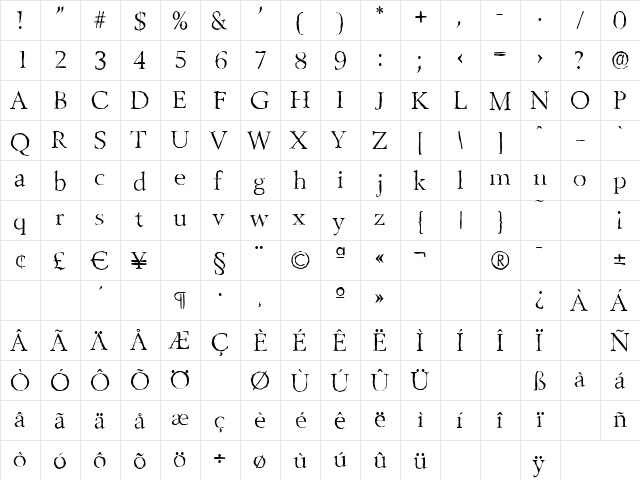
BelfastAntique-Light Regular Font Preview
BelfastAntique-Light Regular
Design Context for BelfastAntique-Light Typeface
BelfastAntique-Light has the warm character of retro typography — evoking diners, record sleeves, and the golden age of print advertising. Its slender proportions lend an understated elegance to any composition.
Font Pairing: Combine BelfastAntique-Light with a simple slab or neutral sans — period-accurate companions reinforce the vintage feel without competing for attention.
Pro Tip: Lean into BelfastAntique-Light's period character by pairing it with aged paper textures, muted colour palettes, and vintage illustration styles.